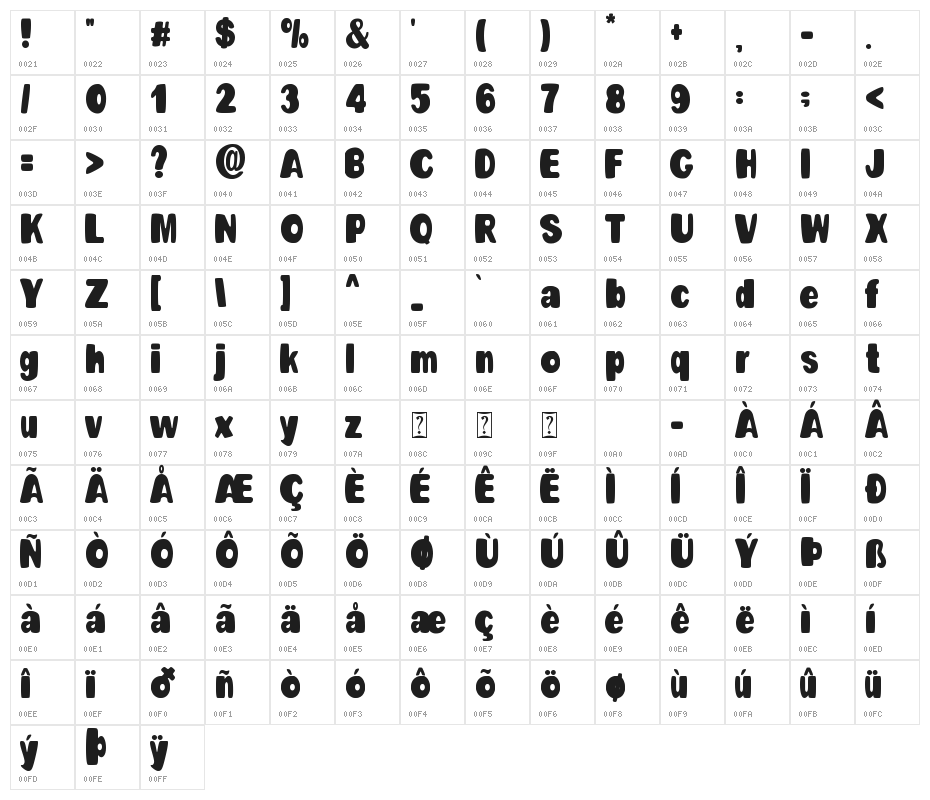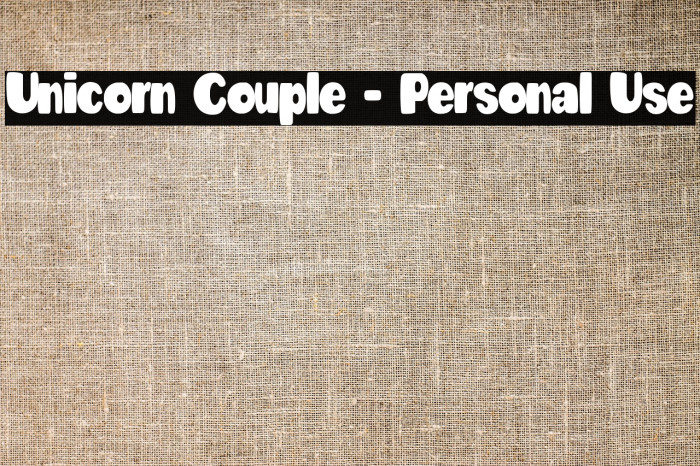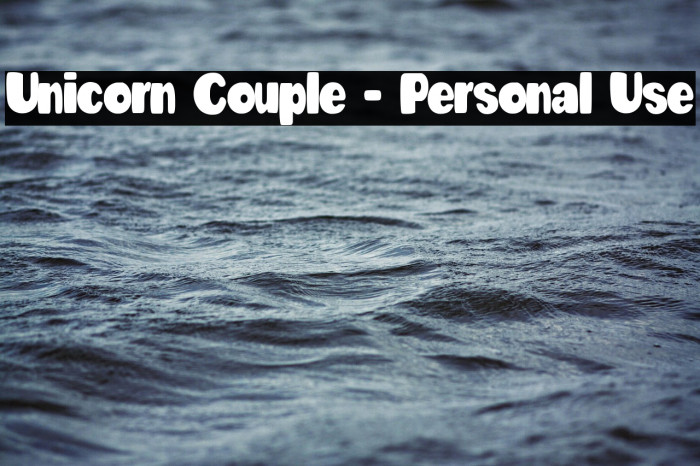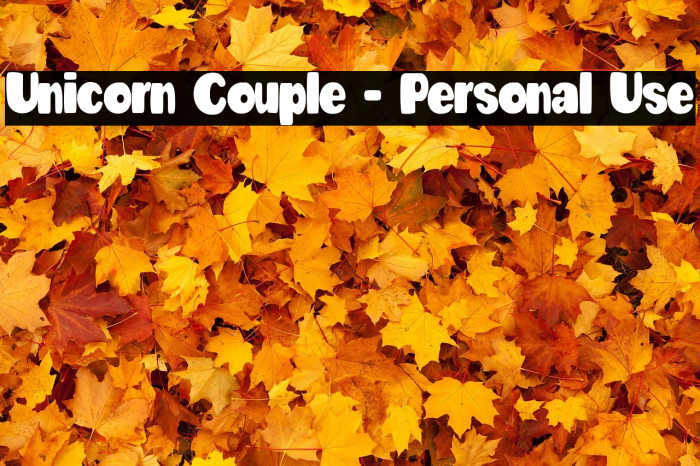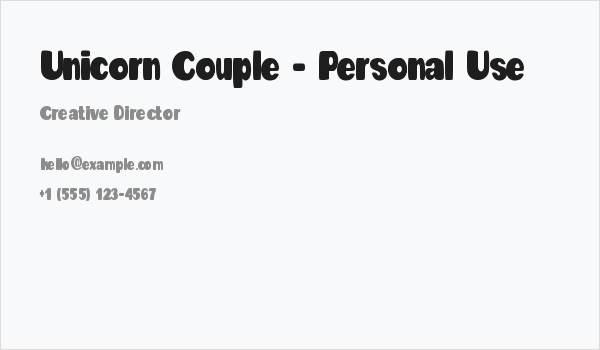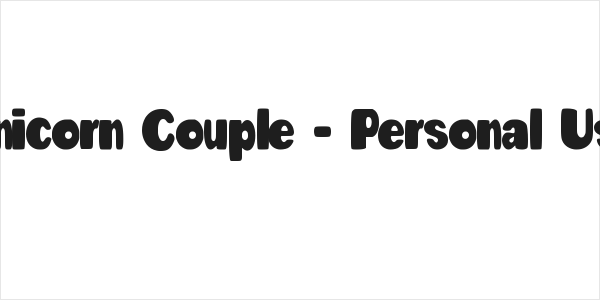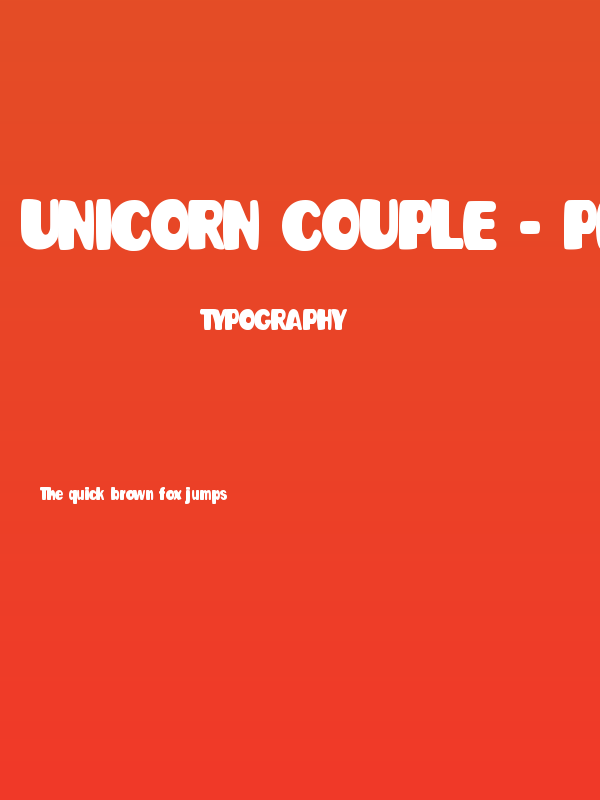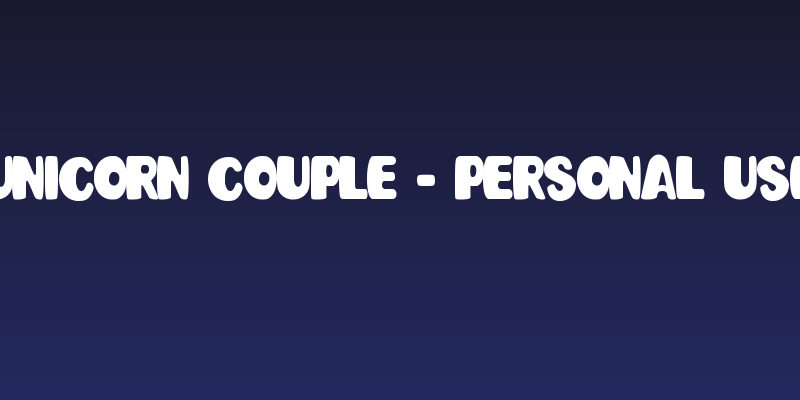
Unicorn Couple - Personal Use Font
Unicorn Couple - Personal Use Description
This playful and bold font features thick, rounded characters that exude a sense of fun and whimsy. The uppercase and lowercase letters maintain a consistent weight, creating a harmonious and cohesive look. The numbers and special characters are equally bold, ensuring readability and impact. The font's design is reminiscent of retro styles, with a modern twist that makes it suitable for contemporary applications. Its rounded edges and uniform stroke width contribute to a friendly and approachable aesthetic, making it ideal for projects that require a touch of personality and charm.
| Proposed Projects | Perfect for children's books, playful branding, posters, and social media graphics. |